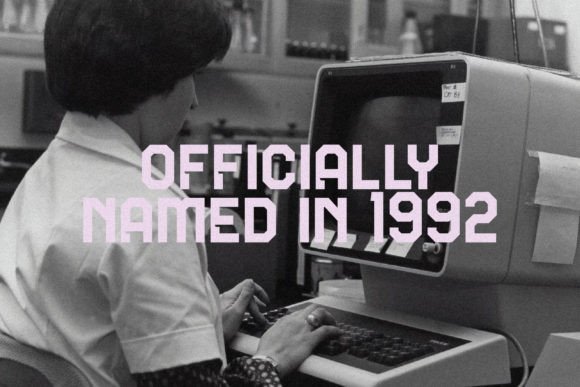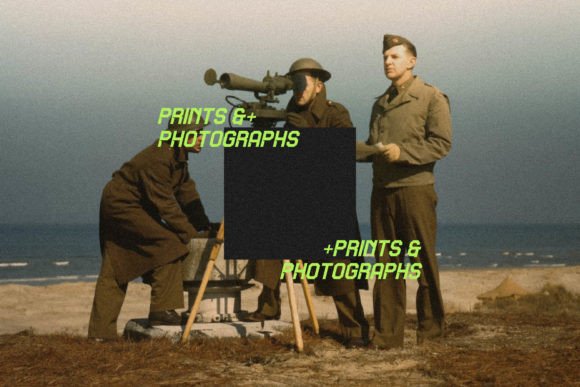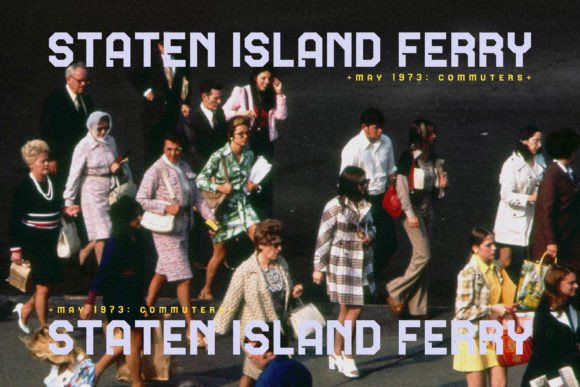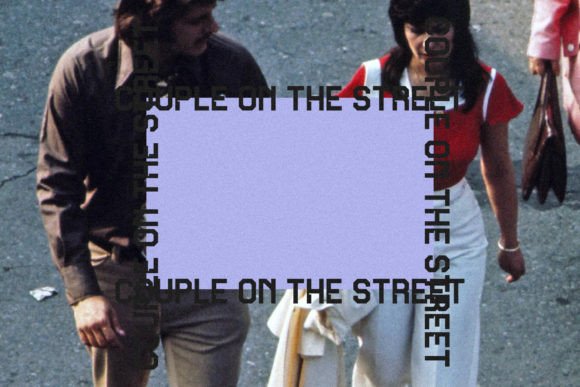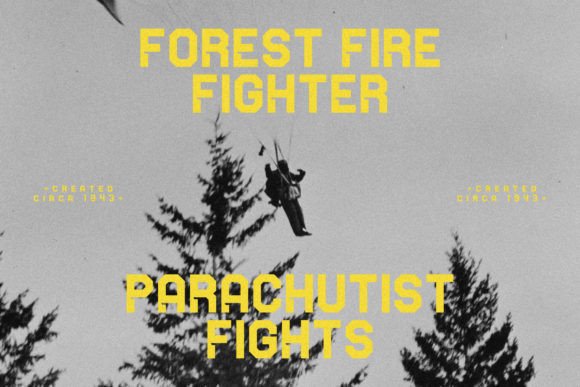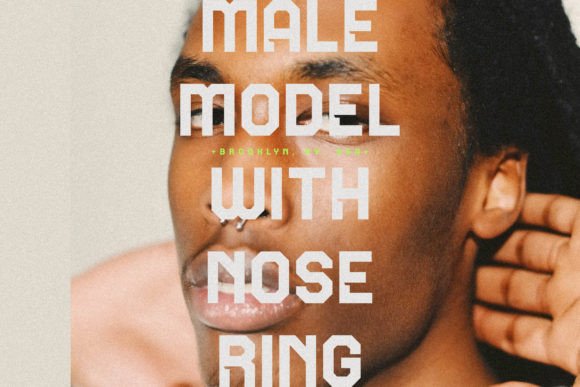
Introduction to Smokind Font
Smokind is a modern and classic sans serif typeface with a unique style and modern look.
This typeface is perfect for an elegant & luxury logo, book or movie title design, fashion brand, magazine, clothes, lettering, quotes, and so much more .
Key Features of Smokind Font
Why Choose Smokind Font?